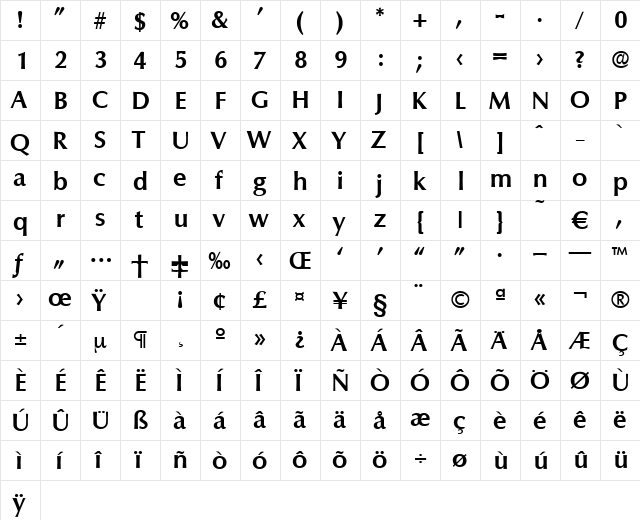
Columbia-DemiBold Regular
Design Context for Columbia-DemiBold Typeface
Columbia-DemiBold is a composed and adaptable typeface that performs quietly and consistently across a wide range of design contexts. The heavy weight commands attention and anchors typographic hierarchies.
Pro Tip: Use Columbia-DemiBold in both headline and body roles to test its range before committing to a single application.